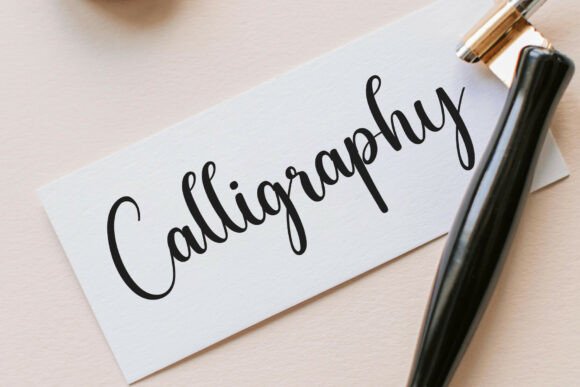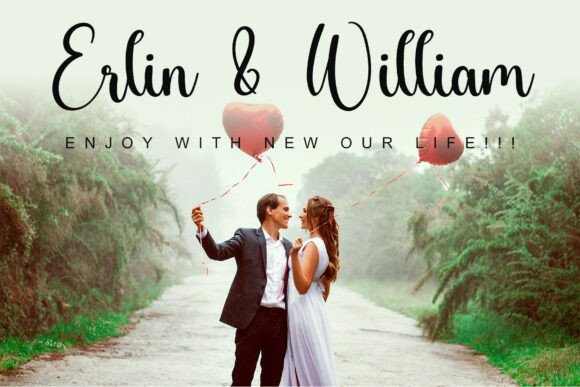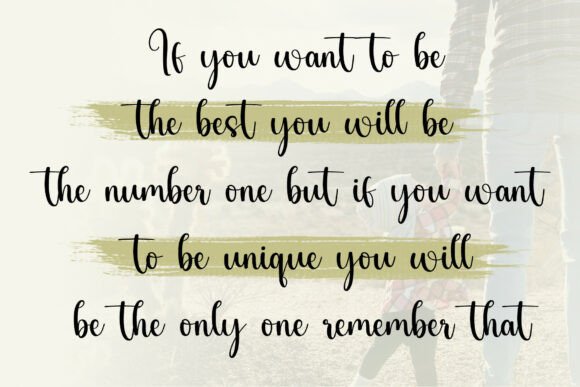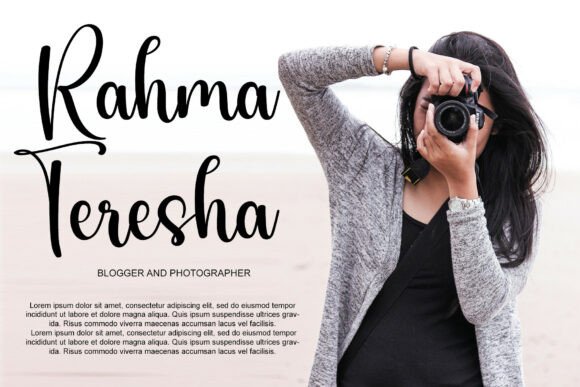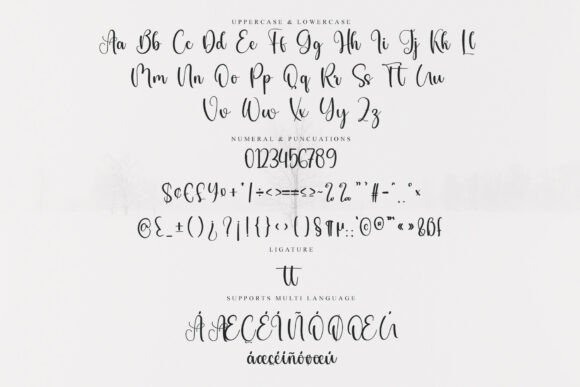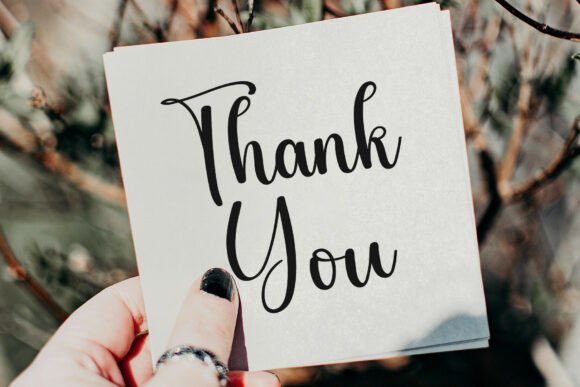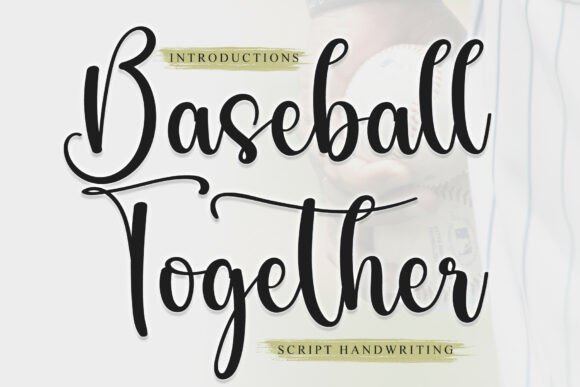
Introducing Baseball Together Font: The Perfect Blend of Strength and Elegance
In the world of typography, few fonts manage to capture the essence of both strength and elegance as effectively as Baseball Together. This bold, fluid script font is designed to make a statement, blending the beauty of handwritten calligraphy with a modern and assertive touch. Whether you’re a designer looking for a striking logo, a crafty individual seeking a stylish headline, or a brand owner in need of an eye-catching element, Baseball Together is the perfect choice.
The Design Behind Baseball Together
Baseball Together font is a masterpiece of modern typography, crafted with precision and passion. Its bold, fluid strokes exude confidence and charisma, making it an ideal choice for those who want to make a lasting impression. The font’s dynamic script style is reminiscent of handwritten calligraphy, yet it boasts a modern and assertive touch that sets it apart from more traditional fonts.
Key Features of Baseball Together Font
- Bold and Fluid Strokes: The font’s bold strokes are both elegant and assertive, making it perfect for headlines, logos, and branding elements.
- Dynamic Script Style: The font’s script style is dynamic and fluid, giving it a sense of movement and energy.
- Handwritten Calligraphy Inspiration: The font draws inspiration from handwritten calligraphy, giving it a personal and unique touch.
- Modern and Assertive Touch: The font’s modern and assertive touch sets it apart from more traditional fonts, making it perfect for those who want to make a statement.
Uses for Baseball Together Font
Baseball Together font is incredibly versatile, making it suitable for a wide range of design projects. Here are just a few examples:
- Logos and Branding: The font’s bold and elegant strokes make it perfect for logos and branding elements that need to make a lasting impression.
- Headlines and Titles: The font’s dynamic script style is ideal for headlines and titles that need to grab attention.
- Posters and Flyers: The font’s bold and fluid strokes make it perfect for posters and flyers that need to stand out.
- Digital Media: The font’s modern and assertive touch makes it suitable for digital media, including social media graphics, video titles, and more.
Why Choose Baseball Together Font?
With so many fonts available, why choose Baseball Together? Here are just a few reasons:
- Unique and Memorable: The font’s bold and dynamic script style makes it unique and memorable, ensuring that your design stands out from the crowd.
- Versatile: The font’s versatility makes it suitable for a wide range of design projects, from logos and branding to posters and digital media.
- Elegant and Assertive: The font’s elegant and assertive touch makes it perfect for those who want to convey strength and sophistication.